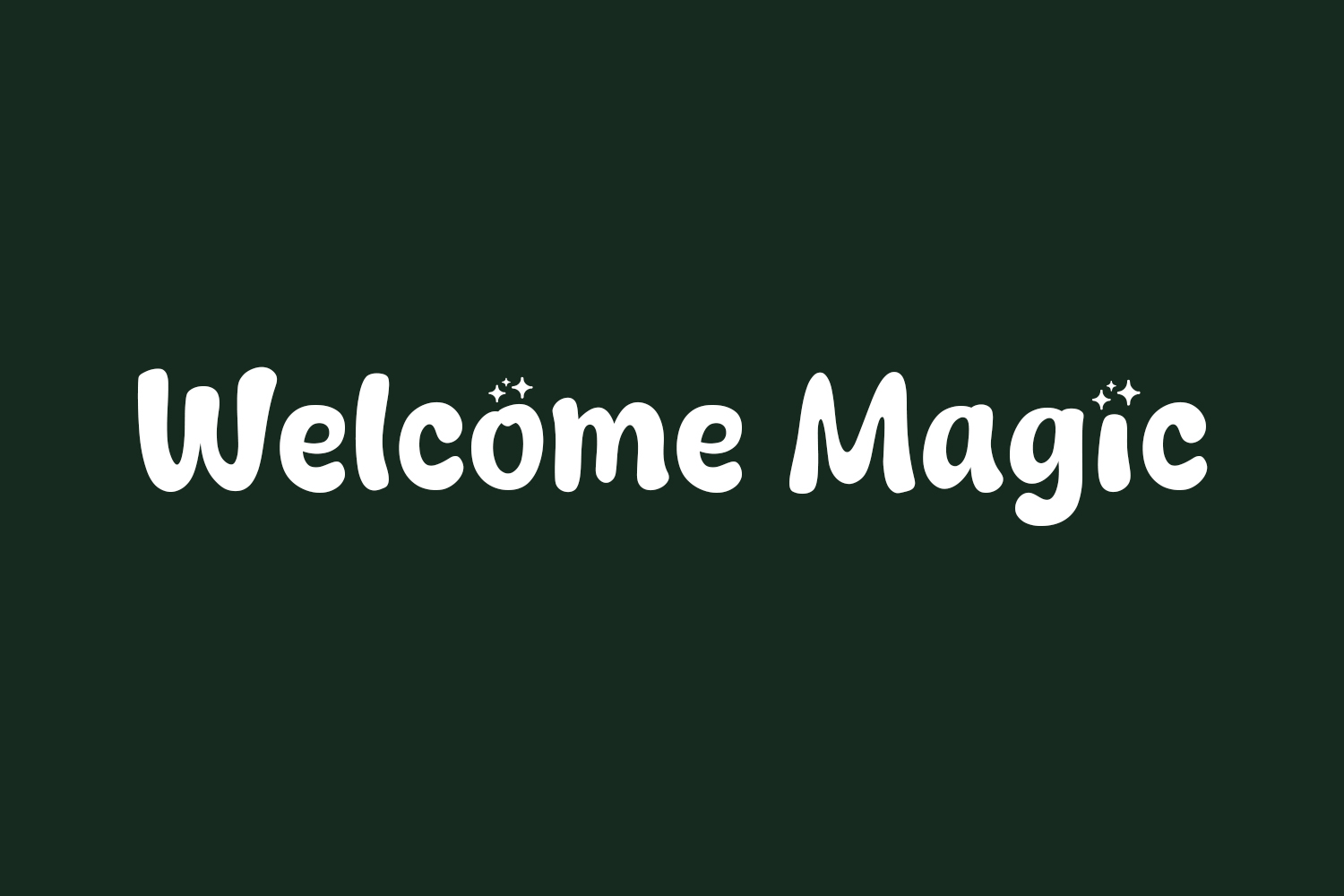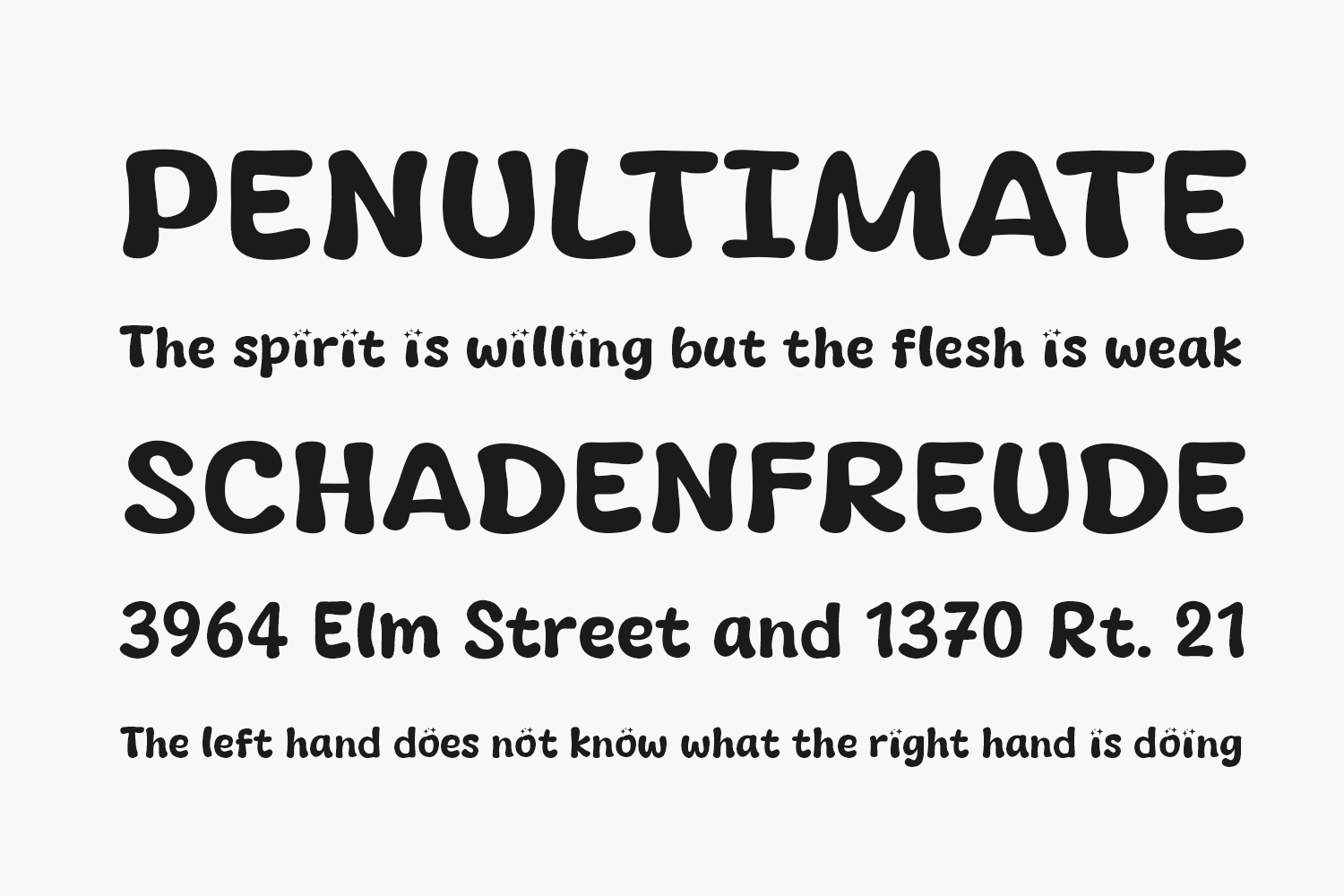
Welcome Magic – Free Charming Hand‑Drawn Display Font
Welcome Magic is a cheerful, hand-drawn display font by Khurasan Studio, crafted with playful curves and a friendly personality. It features full uppercase and lowercase alphabets, numerals, punctuation, and symbols—available in both OTF and TTF formats. This font supports Latin, Cebuano, and Swahili languages and is free for both personal and commercial use. Perfect for children’s products, party invitations, labels, social media graphics, packaging, movie titles, and more—its rounded, slightly glittery aesthetic adds instant warmth and.
Why Choose Welcome Magic?
- Cute & Friendly Style: Rounded, informal letterforms evoke fun and approachability.
- Full Character Set: Includes uppercase, lowercase, numerals, punctuation, and symbols.
- Ready for Any Project: Works beautifully in branding, invitations, packaging, children’s illustrations, and banners.
Where to Use Welcome Magic?
- Kids’ Products & Books: Ideal for colorful storybooks, toy packaging, and educational materials.
- Invitations & Greeting Cards: Adds whimsical charm to birthday, baby shower, and party designs.
- Social Media Graphics: Perfect for fun quotes, banners, and story overlays on Instagram, YouTube, TikTok, and Pinterest.
- Product Packaging & Labels: Great for food, cosmetics, and craft items targeting families and children.
- Branding & Logos: Cute, media-friendly identity for cafes, play centers, or lifestyle blogs.
Design Tips with Welcome Magic
Use at medium-large sizes (≥24 pt) to showcase its playful character. Pair with clean sans-serifs like Butter or Prototype to balance whimsy with readability. Try pastel palettes—lemon yellow, mint green, pastel pink—or high-contrast combinations for pop. Works wonderfully on textured paper, kraft backdrops, or layered over simple illustrations.
- Glyphs: Uppercase/lowercase letters, numerals, punctuation, symbols (~116 glyphs).